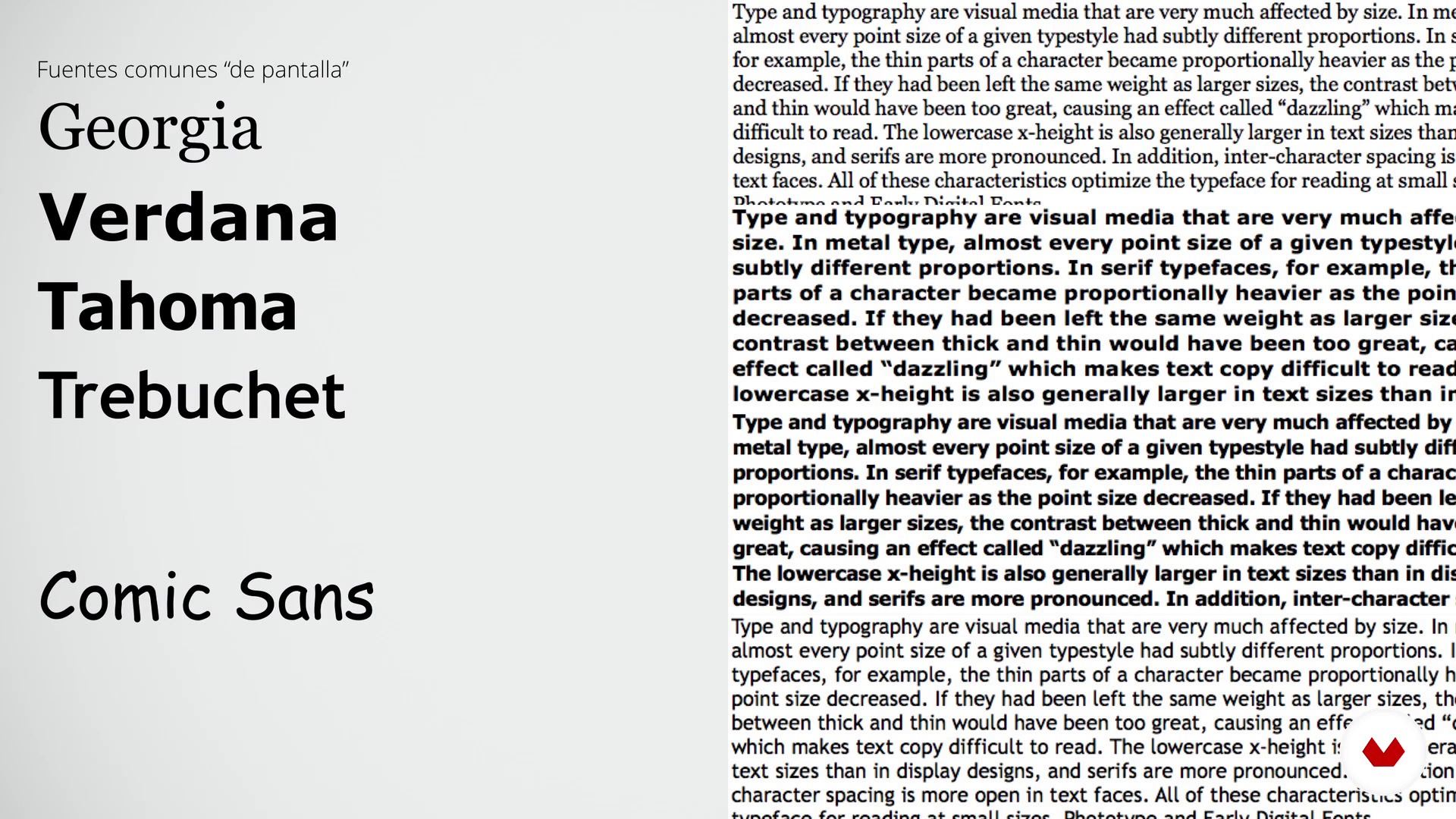
Types for screen
About the video: Types for screen
“The time has come to see the problems of types for screen.”
In this video lesson Enric Jardí addresses the topic: Types for screen, which is part of the Domestika online course: How to Choose Fonts. Discover what each type of font tells us and how to choose the right one for your project.
“Types for display Everything we have said is for both paper and screen, but we know that, when working for screen, we have very specific problems which are basically of technological limitation. Here, we are on a ground where the traditional designer loses his footing because you must collaborate with other professionals. We don't know where we can decide where we can make decisions or where they do not leave us. Let's see what specific problems we have with screen fonts. One of the things we should know when designing for screen is that in many cases we will not have absolute control how t...”